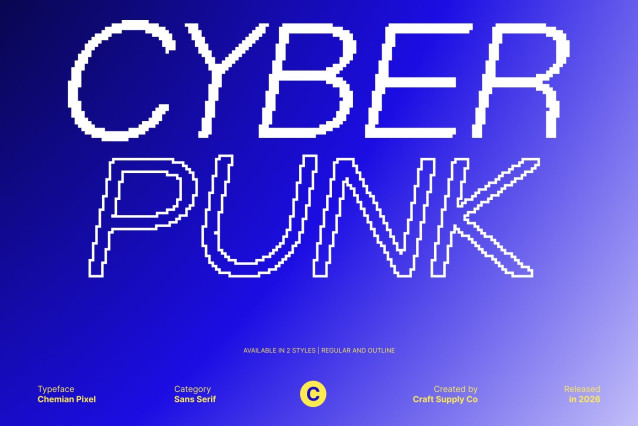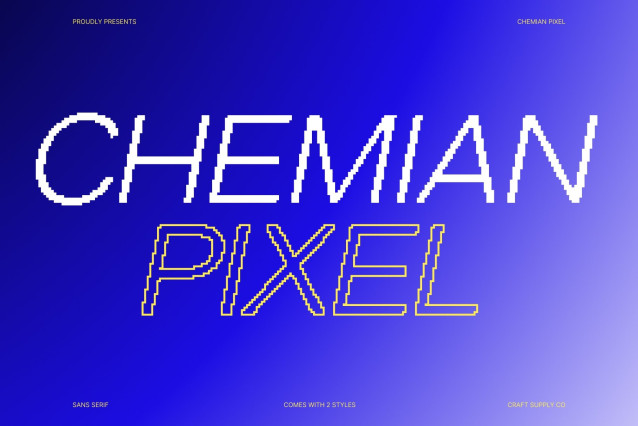
Chemian Pixel Font
Chemian Pixel Font – This is a modern sans serif font designed with a clean and elegant structure, enhanced by subtle pixel precision. Its refined forms create a contemporary appearance that feels both professional and approachable, making it ideal for digital-first projects that value clarity and modern aesthetics.
Versatile and Professional Design
Built for flexibility, this font adapts seamlessly across a wide range of design needs. From websites and app interfaces to corporate branding and visual identities, its minimal and structured design delivers a polished, professional impression while maintaining a modern edge.
Enhanced Readability Across Media
Readability is a core strength of Chemian Pixel. Carefully balanced letterforms ensure excellent legibility in both headlines and body text, whether displayed on screens or in print. The clean spacing and pixel-inspired precision help maintain visual comfort and consistency in long-form content.
Ideal for Modern Digital Projects
Whether you are designing a website, developing an application, or crafting a strong visual identity, this font is a reliable choice. Its clean sans serif foundation and elegant simplicity ensure your designs remain functional, stylish, and professional perfect for modern brands seeking clarity and sophistication.